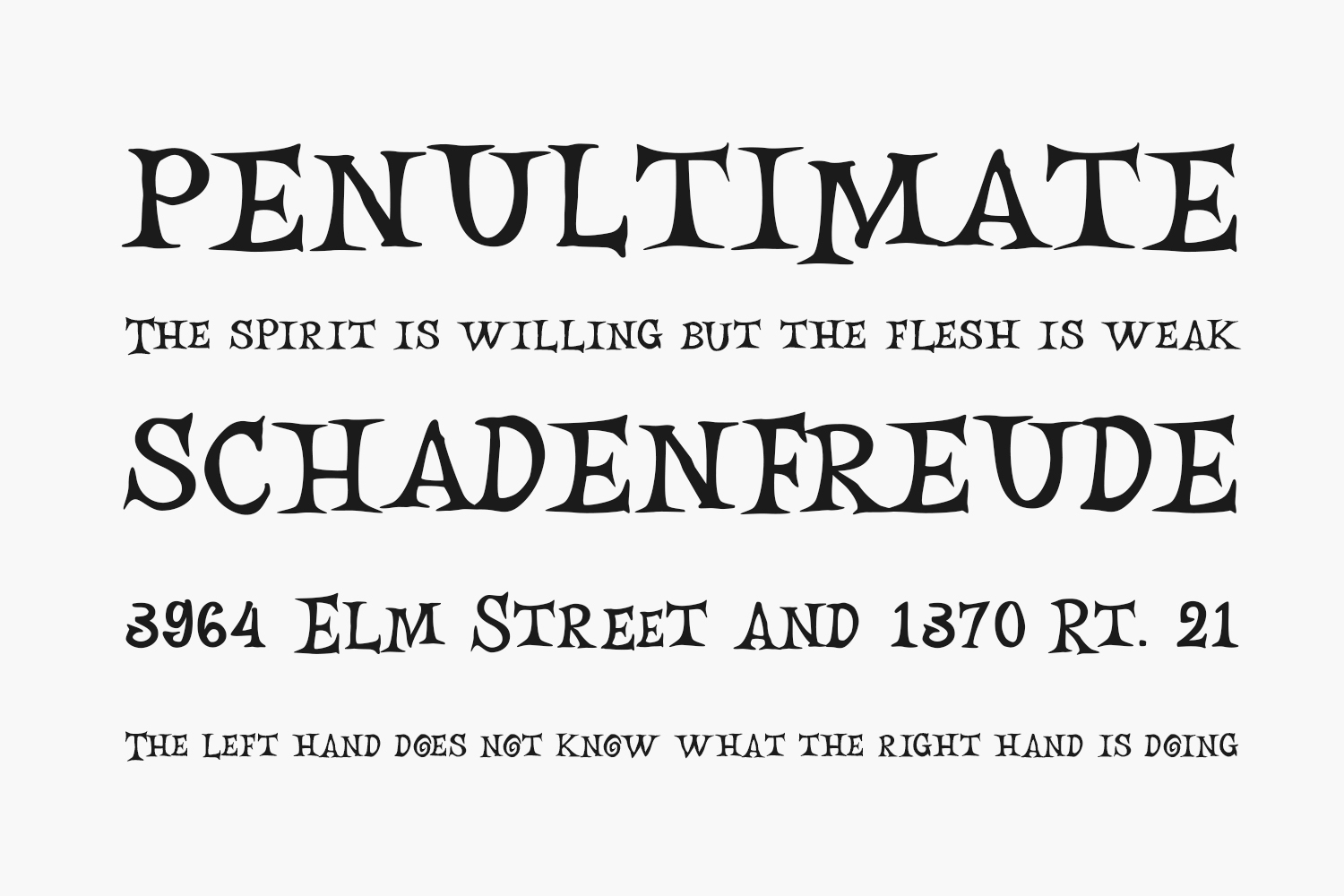
Creepy Pumkin Free Font is a cool and spooky display font. Add it confidently to your projects, and you will love the results. Creepy Pumkin Free Font was designed by Letter Art Studio and is free for personal use only. Please purchase the full version for commercial use.
Designed by Letter Art Studio